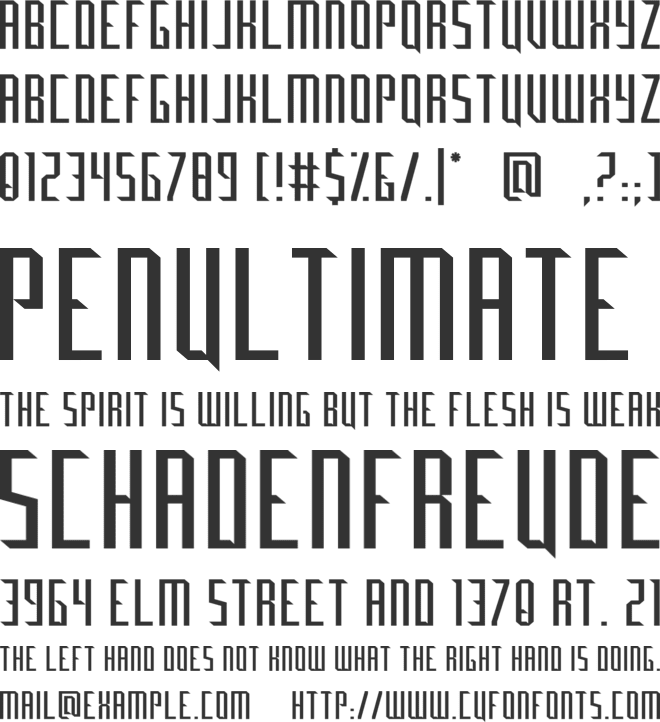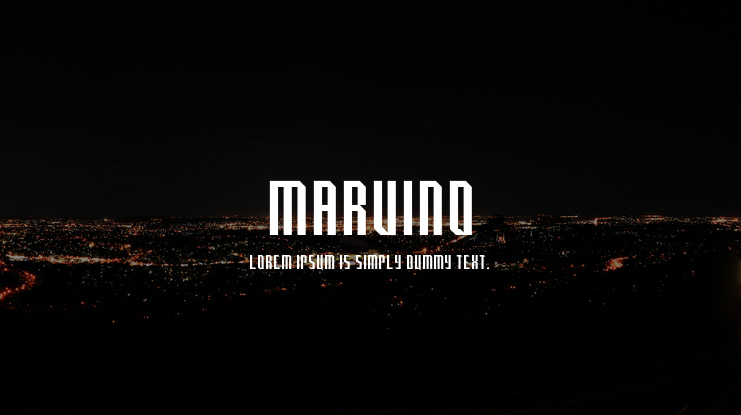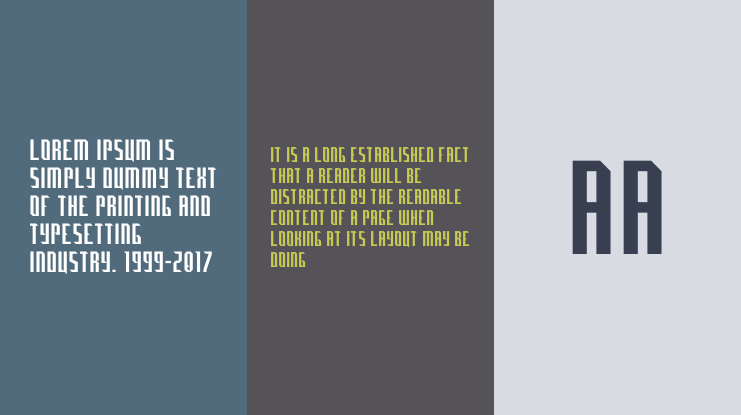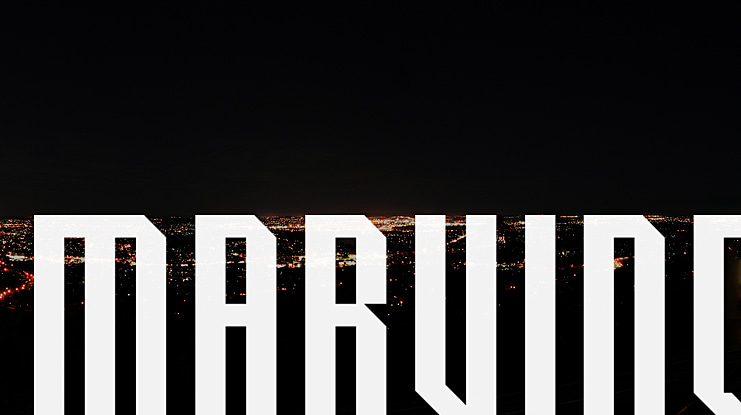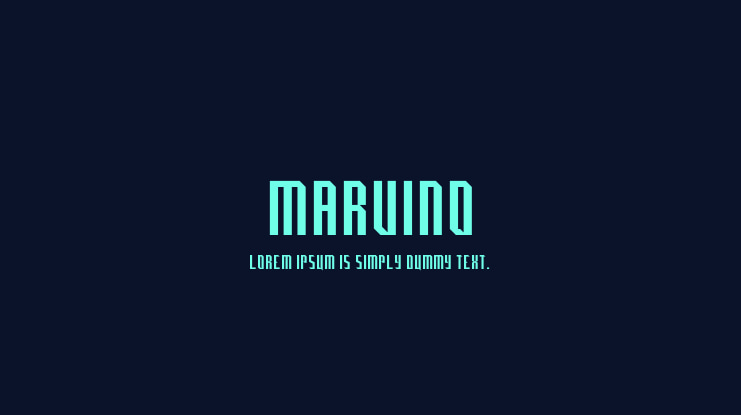
Marvino Font Family
Valency Graphics
This modern gothic typeface was born out of a love of both simplicity and sharp edges, slicing through graphics and photos like a knife through butter. Each character has been lovingly crafted and designed with ease of use in mind.